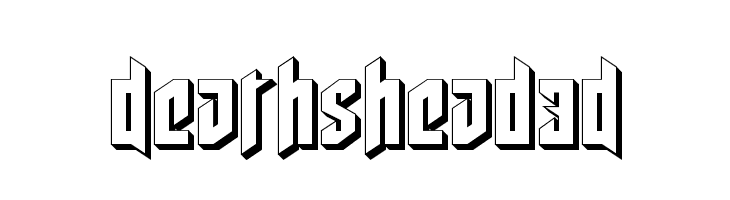
A playful, hand-drawn font with a whimsical and informal style.
( Fonts by Tokokoo Studio )
A playful, bold font with a hand-drawn, childlike style.
( Fonts by Si Panji )
A bold, playful font with rounded, bubbly characters.
( Fonts by Sahl Studio )
A playful, hand-drawn font with rounded, bubbly characters.
A playful, bold, and hand-drawn font with a whimsical style.
A playful, bold font with a bubble-like, outlined style.
( Fonts by Anuquet Mangum )
A bold, geometric font with high contrast and a playful, modern design.
( Fonts by Ianmikraz )